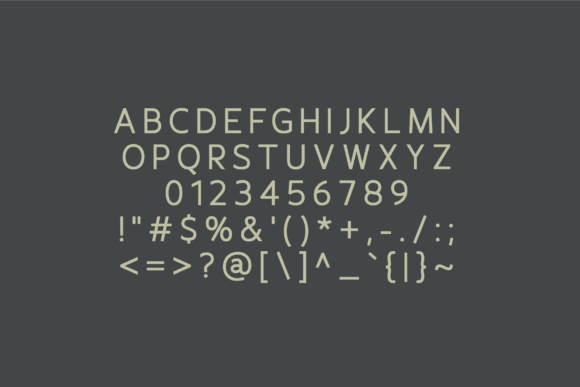
Rosequartz Font: Elevate Your Designs with a Modern, Classy Sans Serif Typeface
In the world of typography, fonts play a vital role in conveying messages, expressing emotions, and creating visual identities. Among the numerous fonts available, Rosequartz stands out as a modern, classy sans serif typeface that has gained significant attention in recent times. In this article, we’ll delve into the features, benefits, and uses of Rosequartz, exploring how it can elevate your designs and help you achieve your creative goals.
What is Rosequartz Font?
Rosequartz is a sans serif typeface that boasts a clean, minimalist aesthetic, making it perfect for a wide range of design applications. This font contains upper characters, numbers 0-9, and a range of punctuation and symbols, ensuring that you have everything you need to create stunning designs. The font’s simplicity and elegance make it an excellent choice for designers seeking a versatile and sophisticated typeface.
Key Features of Rosequartz Font
- Modern and Classy Design: Rosequartz features a sleek, contemporary design that exudes sophistication and elegance.
- Sans Serif Typeface: The font’s sans serif design ensures that your text remains clear and legible, even at small sizes.
- Upper Characters, Numbers, and Symbols: Rosequartz includes a comprehensive range of characters, numbers, and symbols, providing you with everything you need to create professional-looking designs.
- Extremely Versatile: This font is perfect for a wide range of design applications, including logos, weddings, invitations, quotes, advertisements, print, magazines, and more.
Benefits of Using Rosequartz Font
Rosequartz offers numerous benefits that make it an excellent choice for designers. Some of the key advantages of using this font include:
- Enhanced Readability: The font’s clear, sans serif design ensures that your text remains easy to read, even at small sizes.
- Professional Look and Feel: Rosequartz’s modern, classy design gives your designs a professional look and feel, perfect for businesses, brands, and individuals seeking to establish a strong visual identity.
- Versatility: This font can be used in a wide range of design applications, making it an excellent addition to your font library.
Use Cases for Rosequartz Font
Rosequartz is an extremely versatile font that can be used in various design applications. Some of the most popular use cases for this font include:
- Logo Design: Rosequartz is perfect for creating modern, sophisticated logos that accurately represent your brand’s identity.
- Weddings and Invitations: The font’s elegant design makes it an excellent choice for wedding invitations, save-the-date cards, and other formal events.
- Quotes and Advertisements: Rosequartz is ideal for creating eye-catching quotes and advertisements that grab attention and convey your message effectively.
- Print and Magazines: This font is suitable for print materials, such as brochures, flyers, and magazines, where readability and aesthetics are crucial.
Rosequartz is a modern, classy sans serif typeface that offers a wide range of benefits and use cases. Its versatility, readability, and professional look and feel make it an excellent choice for designers seeking to elevate their designs. Whether you’re creating logos, weddings, invitations, quotes, advertisements, print materials, or magazines, Rosequartz is an excellent addition to your font library.
- What is Rosequartz font? Rosequartz is a modern, classy sans serif typeface that contains upper characters, numbers 0-9, and a range of punctuation and symbols.